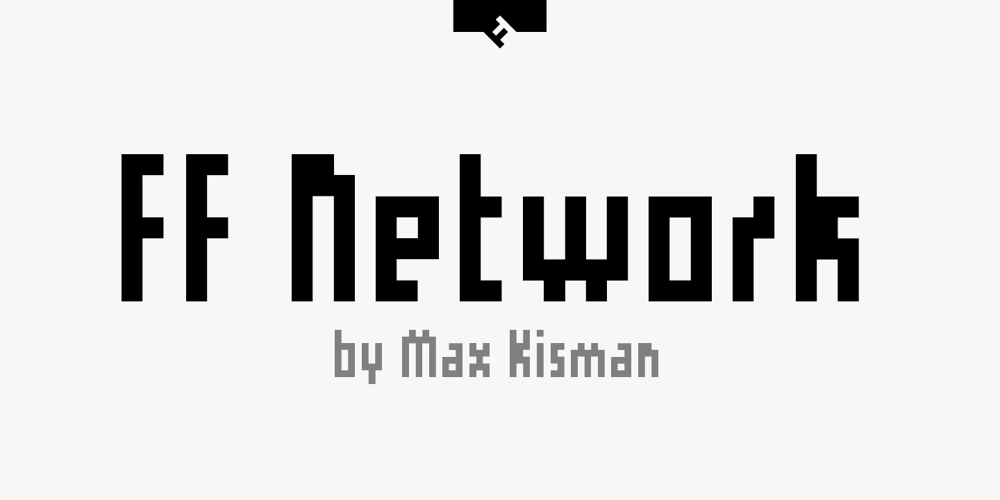
FF Network Font Family was designed by Max Kisman and published by FontFont. FF Network contains 1 styles and family package options. Dutch type designer Max Kisman created this display FontFont in 1991. The font is ideally suited for logo, branding and creative industries and music and nightlife. FF Network provides advanced typographical support with features such as ligatures and case-sensitive forms. It comes with proportional oldstyle figures.